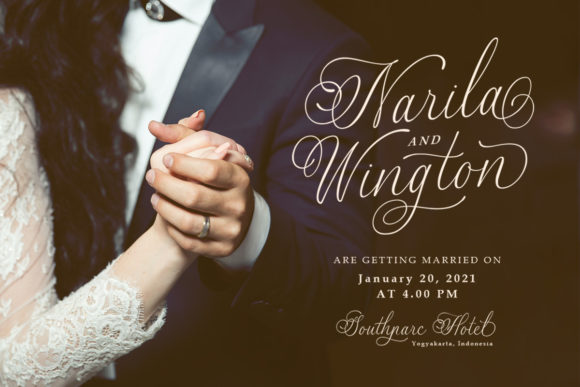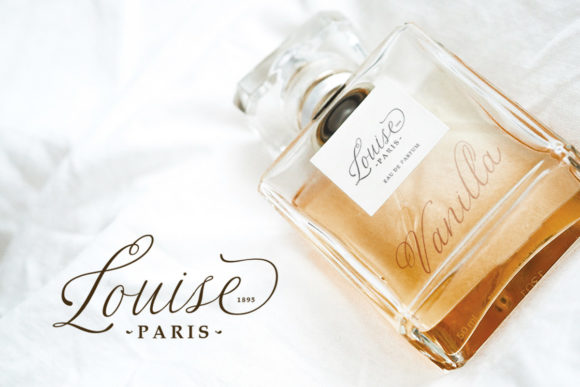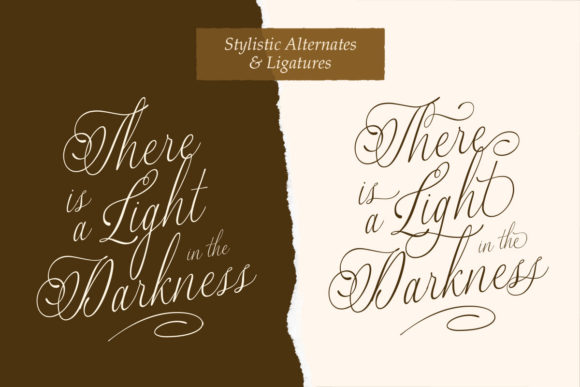
Maleryan Script Font
About the Maleryan Script Font
We are excited to introduce Maleryan Script Font, a must-have typeface for any serious designer. Maleryan is a delicate and elegant handwritten font. Its distinct and well balanced letters make this font a masterpiece. Fall in love with its incredibly versatile style and use it to create spectacular designs!
Maleryan’s elegant, delicate nature makes it ideal for projects requiring a touch of refined sophistication. Consider using it for logos, wedding invitations, short quotes in marketing materials, or headings on high-end product packaging. It excels in applications where readability isn’t paramount, but visual appeal is key. However, its thin strokes and intricate letterforms make it unsuitable for body text or UI elements where clear legibility is essential.
Pairing Maleryan effectively involves considering its inherent grace. A clean sans-serif like Lato or Open Sans provides a strong, modern counterpoint, balancing its delicate script. For a more traditional feel, a classic serif such as Garamond or Georgia would create a harmonious blend. Avoid pairing it with other highly decorative or script fonts, which could create visual clutter.
Maleryan projects an air of sophisticated femininity and timeless elegance. Brands targeting a discerning female audience, luxury goods, or businesses emphasizing quality and craftsmanship would find it particularly effective.
Maleryan Script Font Usage Examples
Maleryan Script Font Example